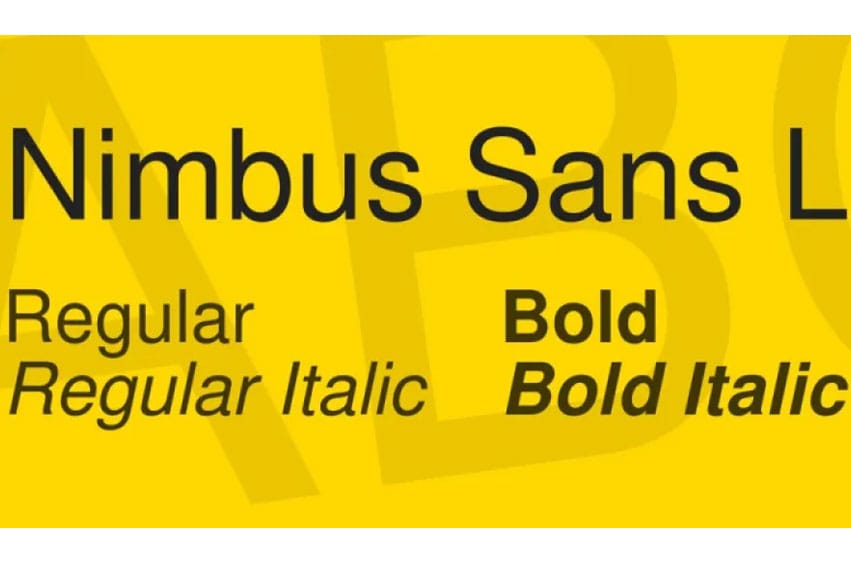
Nimbus Sans L Font is an Adobe source font variant created in 1987 that utilizes five weights and two widths – including Nimbus Sans L Extra Black which only comes as a condensed roman format.
Nimbus Sans L shares similar metrics with Helvetica and Arial fonts; indeed it’s one of Ghostscript fonts, an assortment of no-cost alternatives to the basic 35 PostScript Fonts which includes Helvetica.